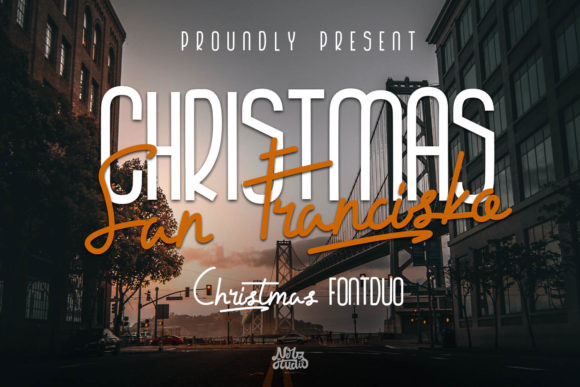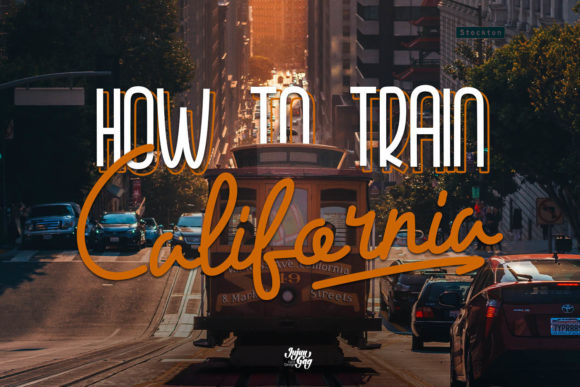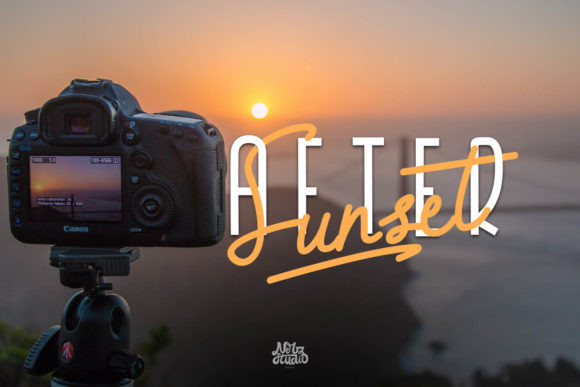
Christmas San Francisko Font
Christmas San Francisko FontChristmas San Francisko is a modern script font. Make your designs look more real and attractive with this great font!